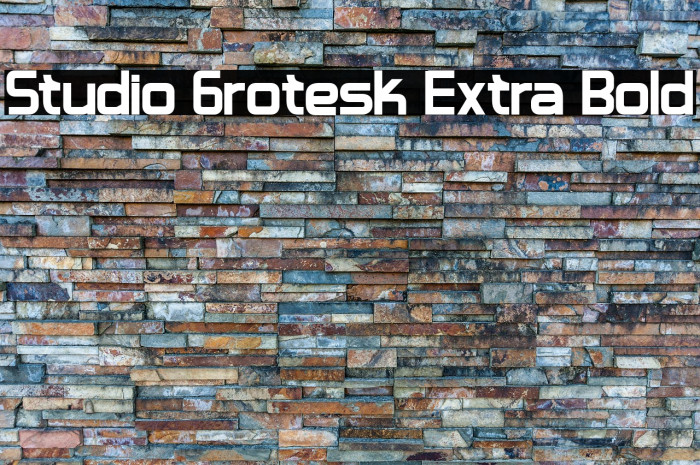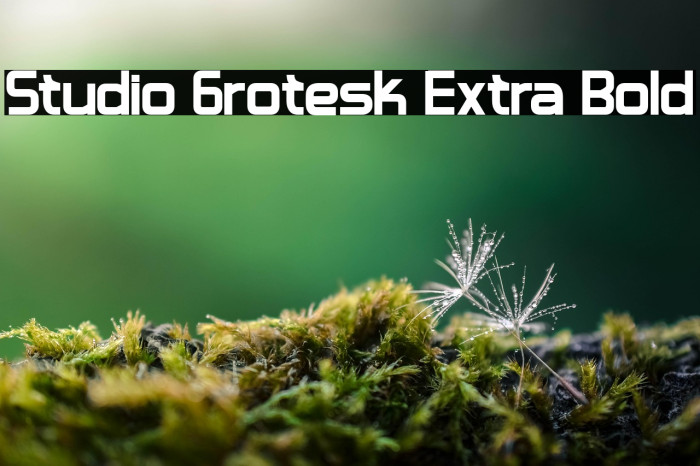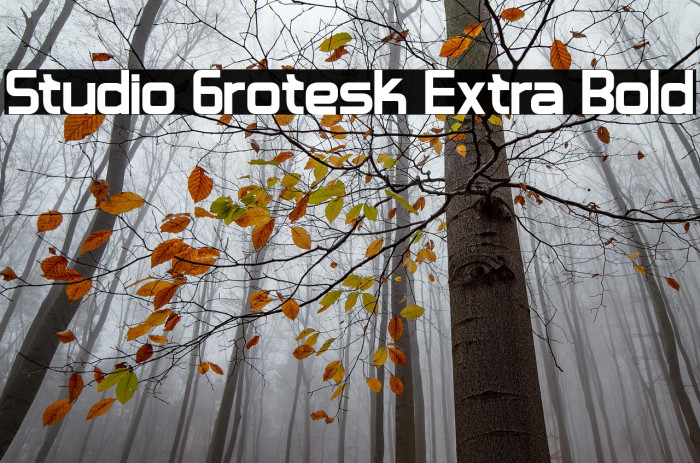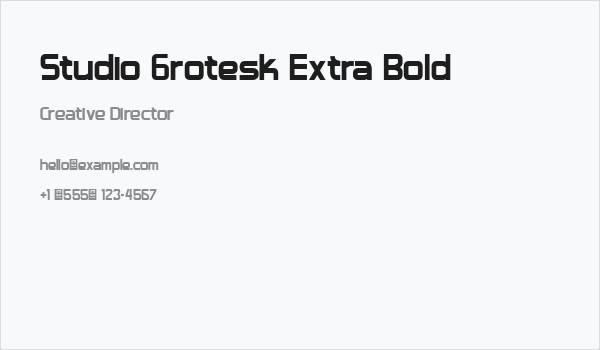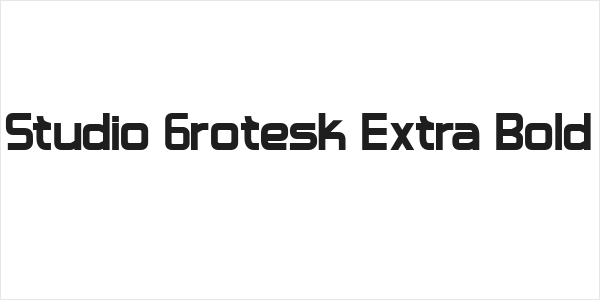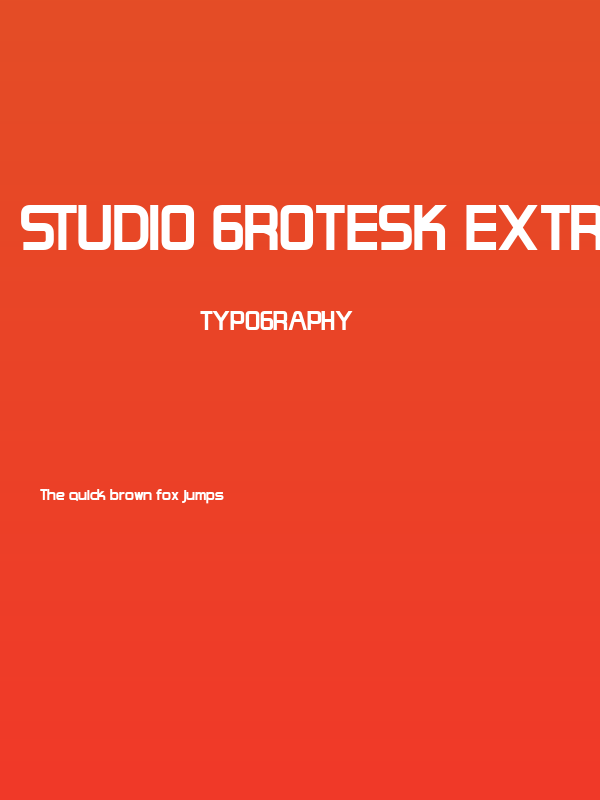
Studio Grotesk Extra Bold Font
Studio Grotesk Extra Bold Description
This font exhibits a bold and robust design, characterized by its thick strokes and geometric shapes. The uppercase letters are uniform in height, creating a strong visual impact. The lowercase letters maintain a consistent style, with rounded edges that soften the overall appearance. The numerals are clear and legible, matching the boldness of the alphabetic characters. Special characters are designed with the same attention to detail, ensuring they integrate seamlessly with the rest of the font. The overall style is modern and clean, making it suitable for a variety of design applications.